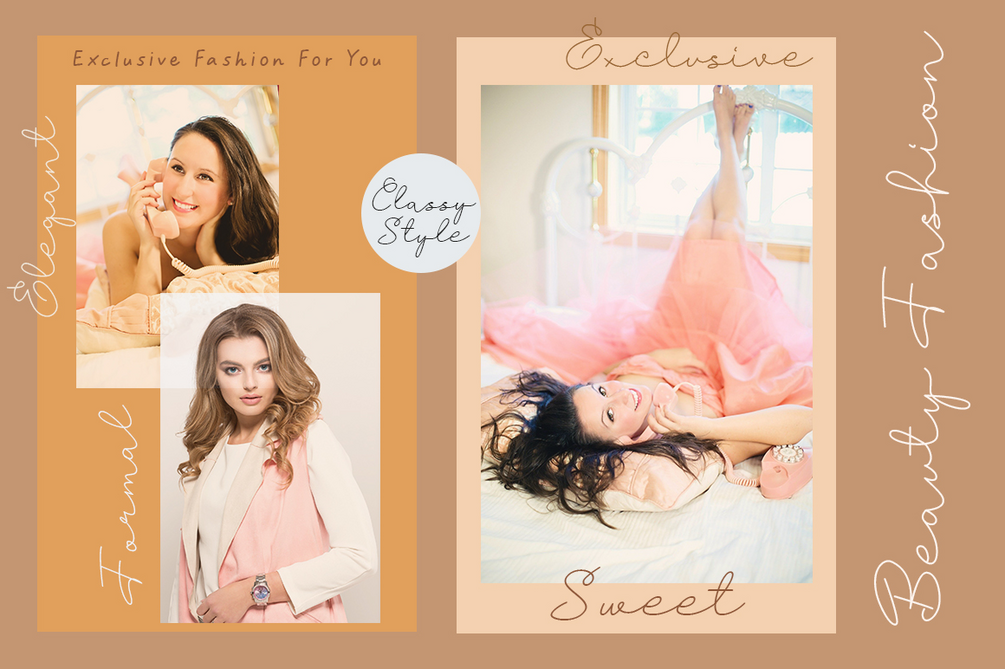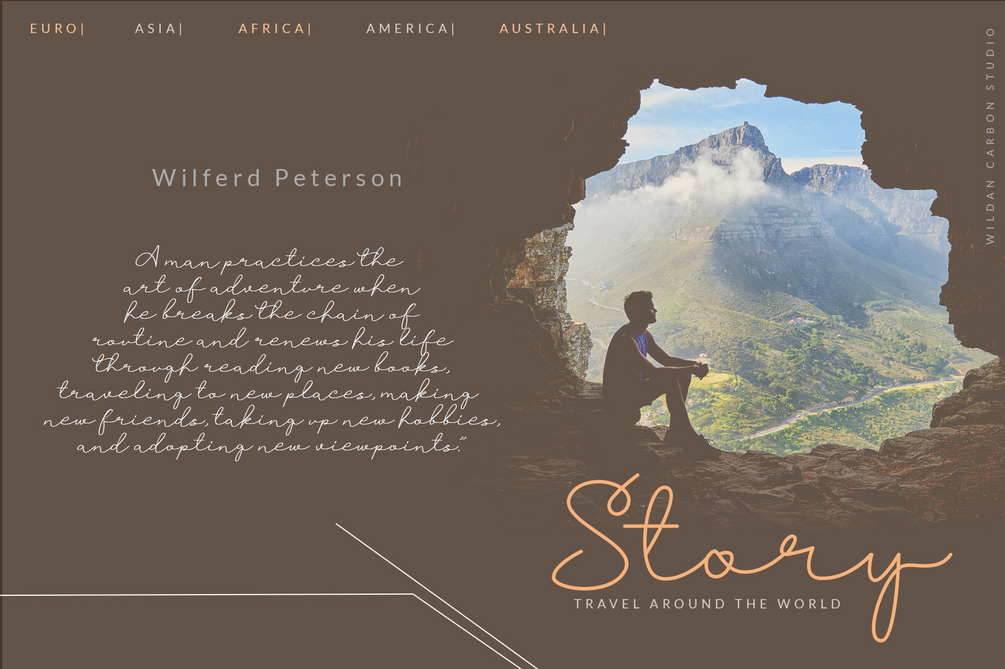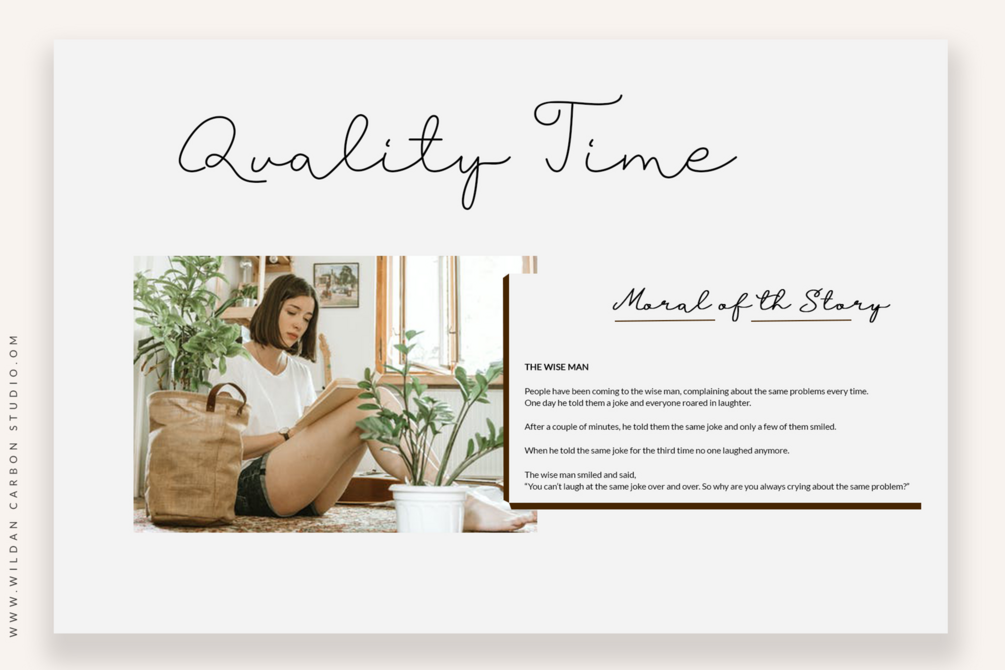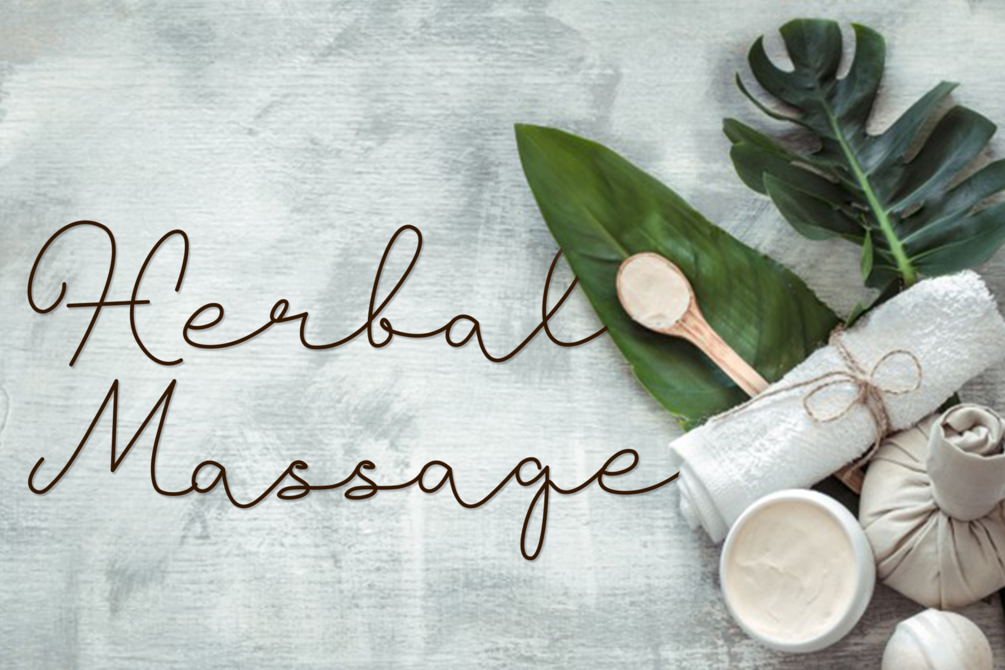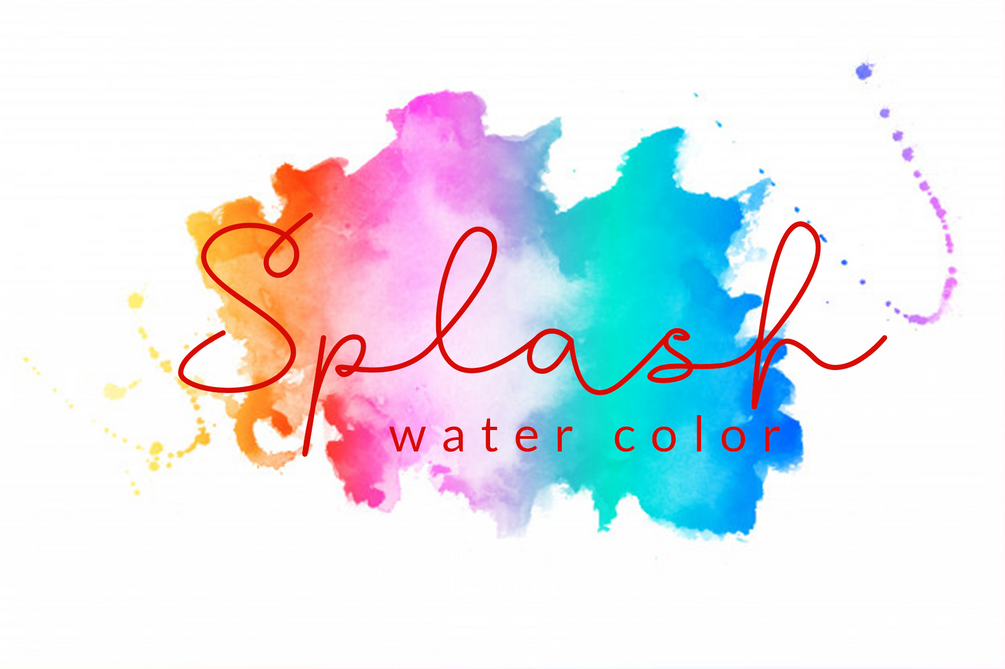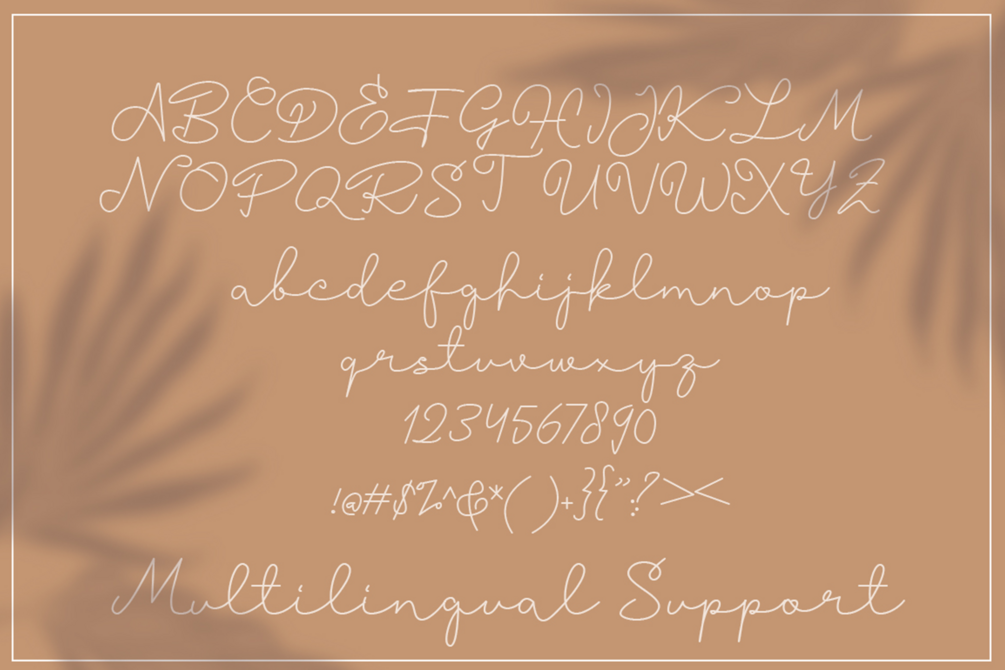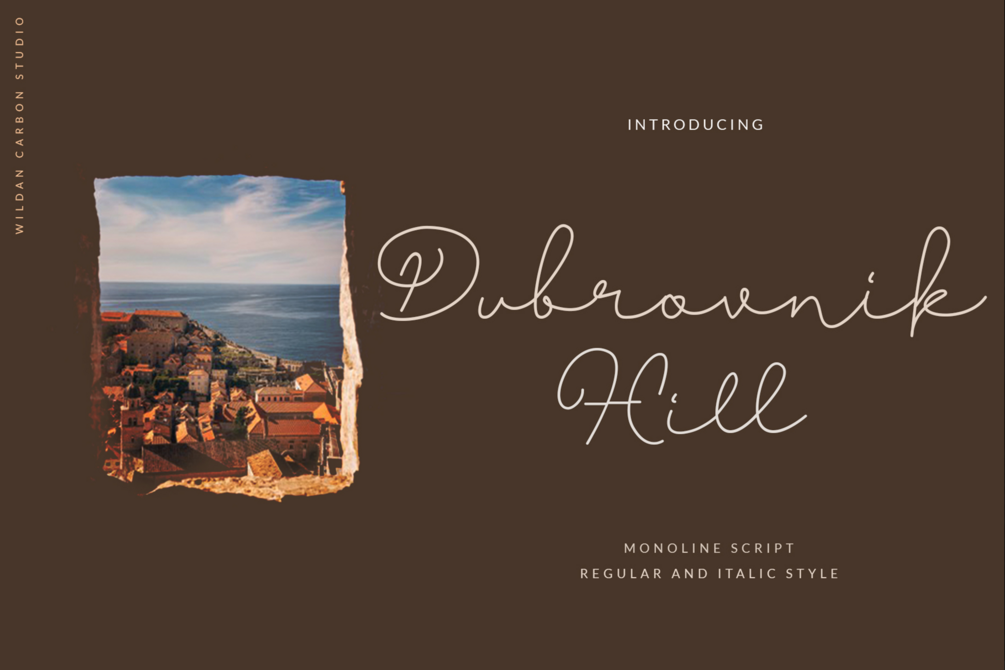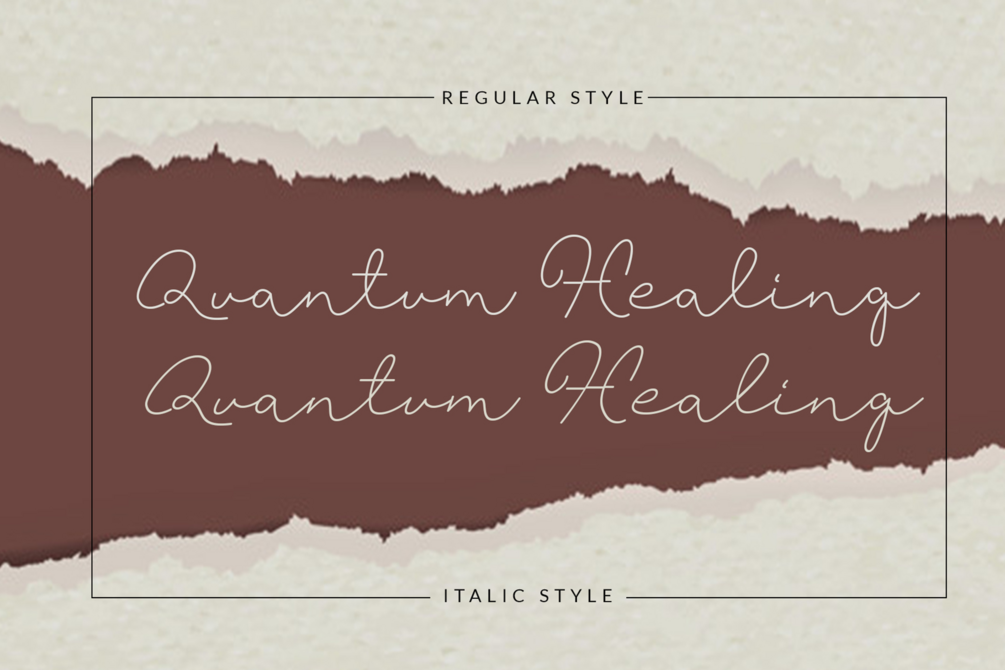
Dubrovnik Hill
Dubrovnik Hill is a thin lettered and delicate handwritten font. It has a clean and smooth vibe and it will be a hit for any design that you want to add it to. It is suitable for any branding, product packaging, invitation, quote, t-shirt, label, poster, logo that you wish to develop.